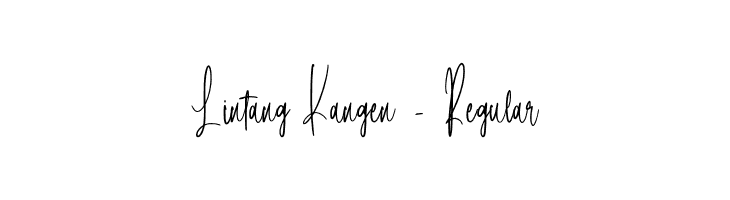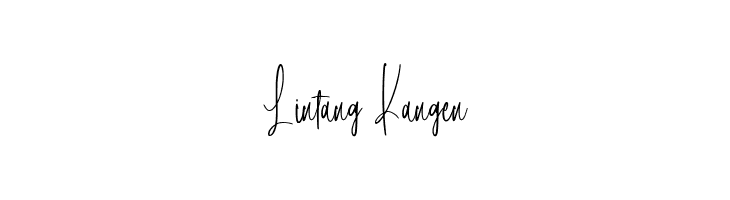
A flowing, elegant script font with connected strokes and a sophisticated appearance.
A playful, handwritten font with flowing, cursive-like strokes.
A playful, handwritten script font with elegant, flowing characters.